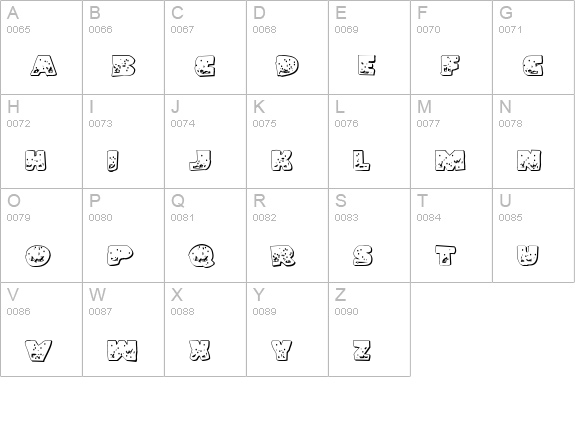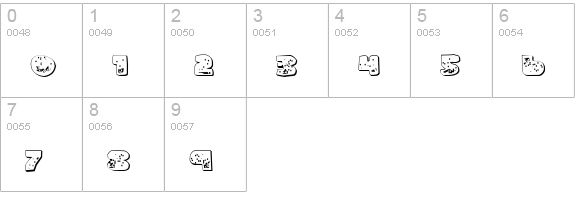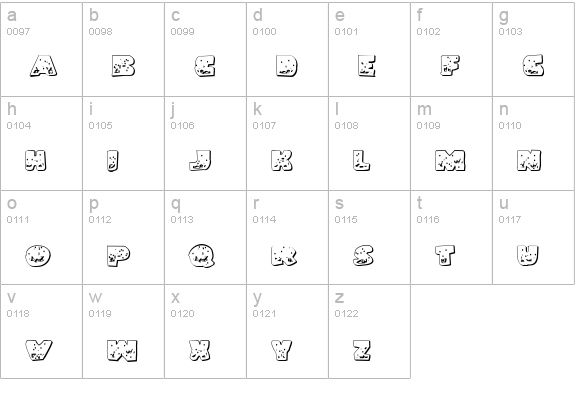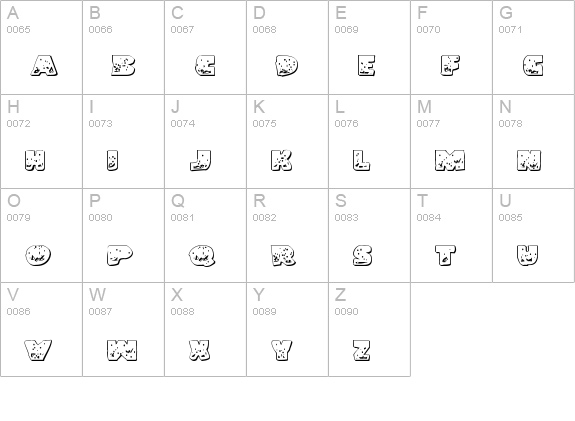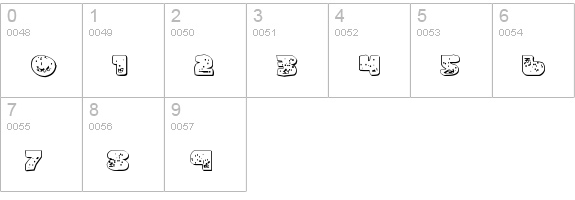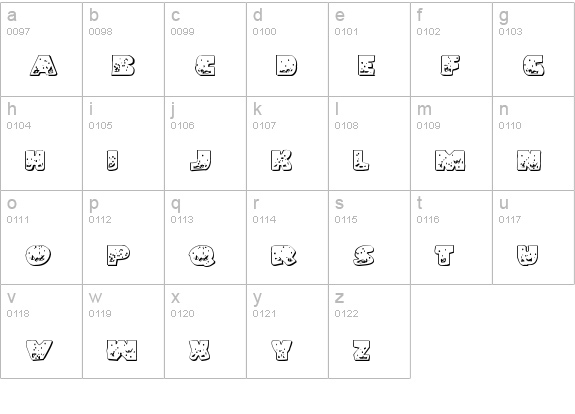
Land Shark Outline Grunge font is a bold and edgy typeface that will add a touch of raw energy to your designs. With its rough and weathered outlines, this font exudes a sense of urban grunge and rebellion. The jagged edges and distressed texture give it a unique and captivating appearance, making it perfect for projects that require a touch of attitude and authenticity. Free to download at FontsMarket.com, Land Shark Outline Grunge font allows you to unleash your creativity without any cost. Whether you're designing posters, album covers, t-shirts, or any other project that needs a bold and gritty look, this font is sure to make a statement. Its distinctive style will help your designs stand out from the crowd and grab attention. Land Shark Outline Grunge font is ideal for a variety of design purposes, from streetwear brands to music festivals to urban-themed events. Its versatility allows you to use it in both digital and print media, ensuring that your message is communicated loud and clear. The font's rough and worn-out appearance adds an element of authenticity, giving your designs a unique and rebellious edge. So why wait? Download Land Shark Outline Grunge font for free at FontsMarket.com and let your creativity run wild. Embrace the urban grunge aesthetic and create designs that leave a lasting impression. Whether you're a professional designer or just starting out, this font is an essential tool in your creative arsenal. Get ready to make a bold statement with Land Shark Outline Grunge font.